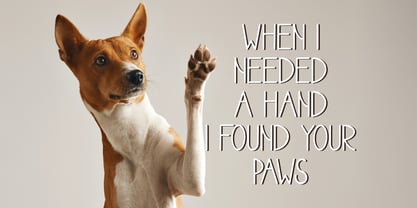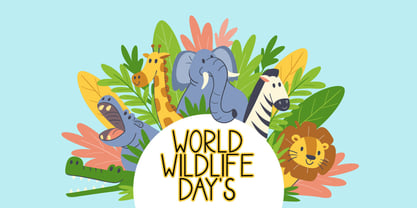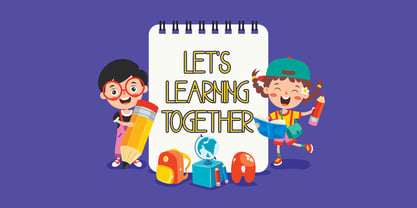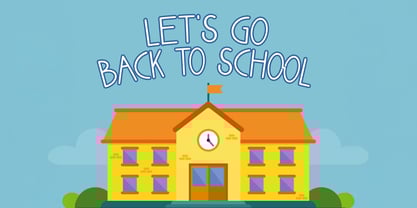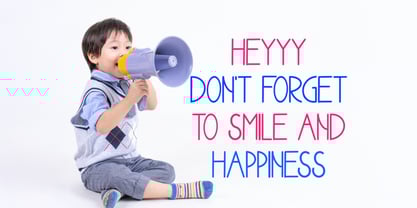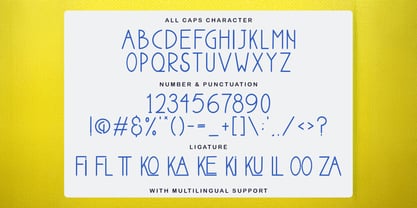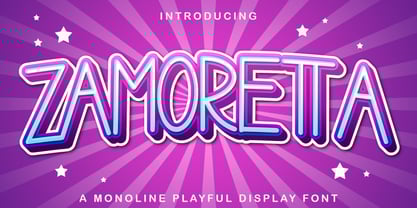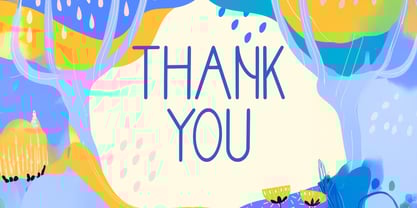
The Zamoretta Font Family was designed by Virgiawan Listanto and published by Stringlabs Creative Studio. Zamoretta contains 1 styles. More about this family
Zamoretta is a vibrant and cheerful playful display font that brings an instant burst of joy to any design. With its lively character and friendly appeal, it's perfect for eye-catching headlines, children's projects, whimsical branding, and anything that needs a playful, energetic touch.
Zamoretta